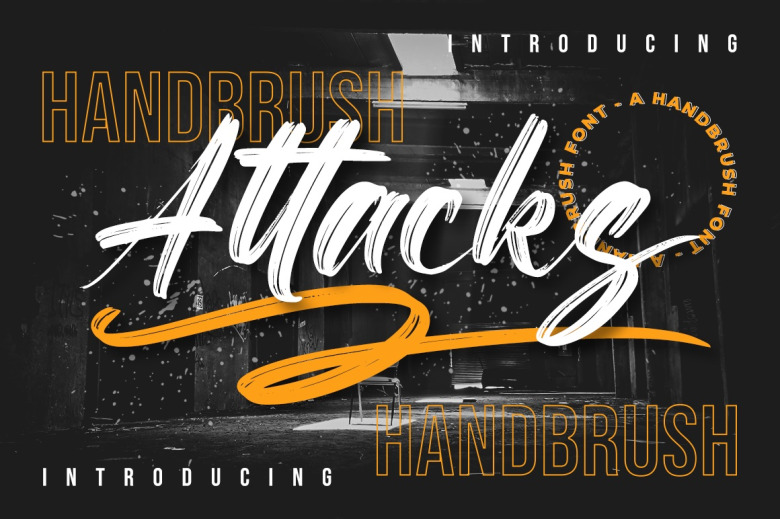
Attacks Brush Font
Attacks is a new and great Brush handwritten script font that has been designed with modern the purpose of attracting the viewers’ attention when working on headlines and logotype. This font has a business like feeling but also is bold and powerful, it can definitely bring a lot of energy to your layouts and add great vintage vibes.
Attacks Brush Script Font